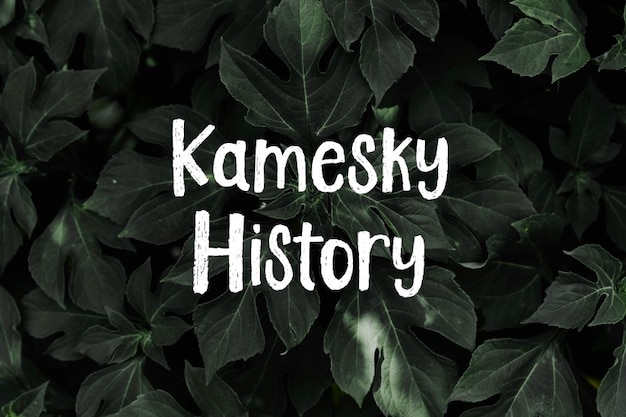
Kamesky History Font
Are you looking for a funny typeface? If so, the Kamesky History font is the one! Its bold design with brushed-type strokes will perfectly suit your projects, whether they are for personal or commercial use. We assure you that there is no better way to decorate your creations than using this playful font. Download it now!